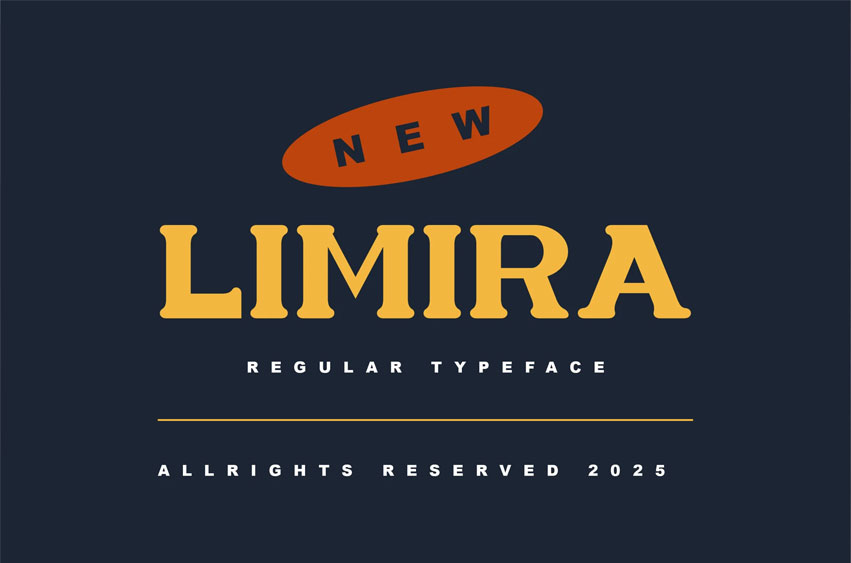
Limira Font is a dynamic and bold retro typeface that seamlessly combines the vibrant energy of the past with a modern touch.
Inspired by the iconic designs of the ’70s and ’80s, this font features strong, flowing letterforms that capture the spirit of vintage signage and old-school typography.